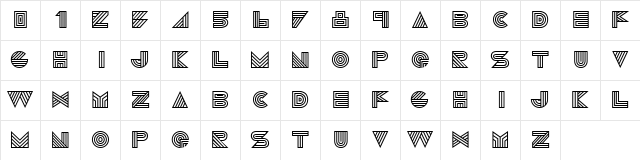
Talie Regular
Design Context for Talie Typeface
Talie is a composed and adaptable typeface that performs quietly and consistently across a wide range of design contexts.